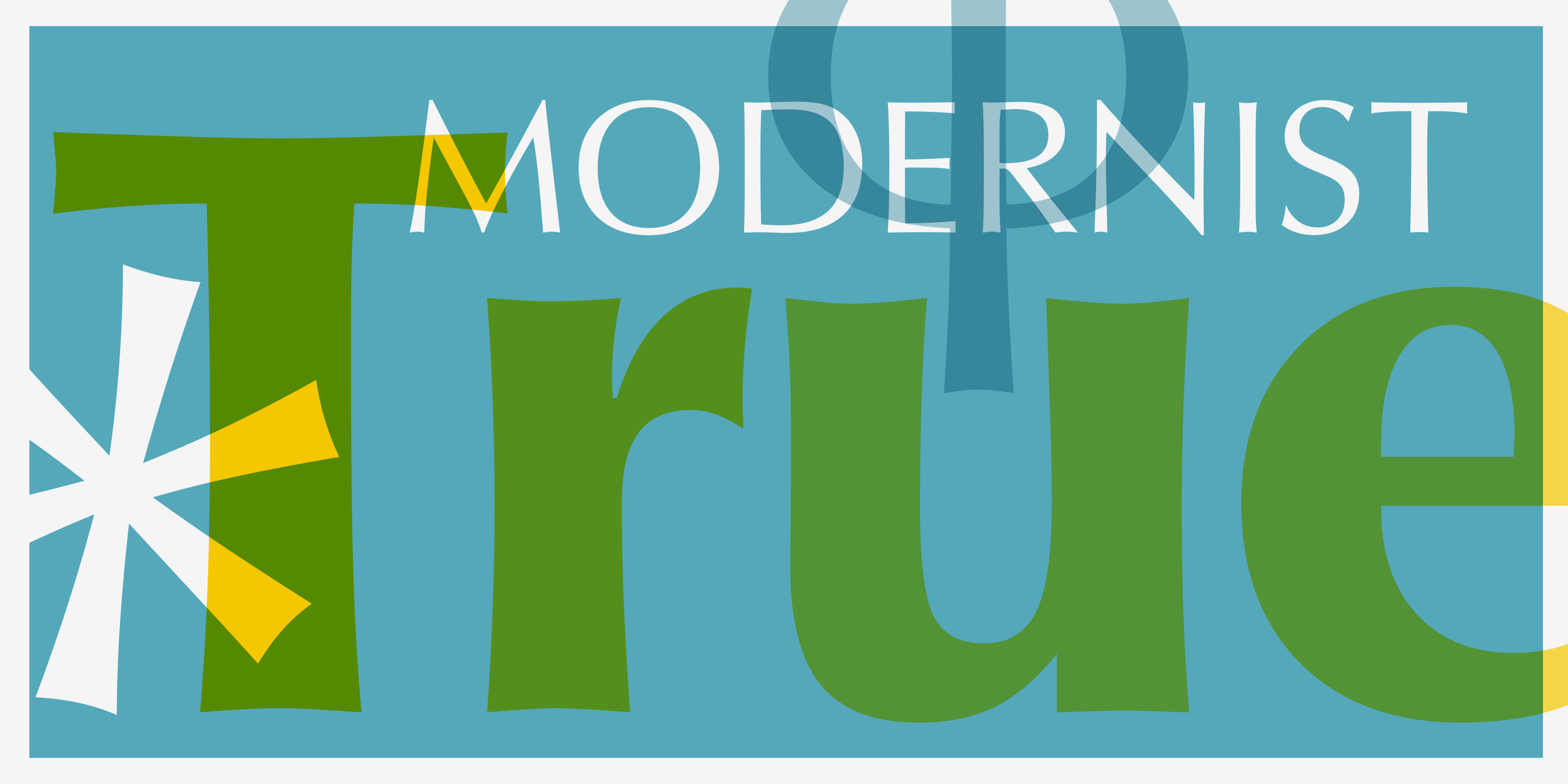
Zapf Humanist 601 Font is perfect for various applications including scholarly publications, academic journals, professional book publishing, literary magazines, educational materials, corporate communications, cultural institution branding, philosophical texts, humanistic research papers, and refined editorial designs.
What makes Zapf Humanist 601 Font so exciting is its masterful embodiment of humanistic typography principles that seamlessly blend classical elegance with contemporary readability to create the perfect balance for scholarly and intellectual discourse. This distinguished typeface features refined letterforms with humanist proportions and calligraphic details that capture the essence of Renaissance typography and modern typographic excellence. The font's intellectual character and humanistic aesthetic make it ideal for brands that want to convey scholarship, wisdom, and cultural sophistication to audiences who value intellectual pursuits, academic excellence, and humanistic traditions.
Zapf Humanist 601 Font family includes multiple weights and styles: Light, Regular, Medium, Bold, Black, Italic, Small Caps, Condensed, and scholarly crafted variants. Each family member maintains the font's signature humanistic elegance while offering different levels of visual hierarchy and stylistic flexibility for diverse academic and intellectual applications.
The Zapf Humanist 601 Font Free Download provides designers with access to a humanistically-inspired typeface that excels in academic and cultural markets. Whether you're creating scholarly publication identities, designing educational materials, or developing intellectual digital experiences, this font delivers the refined aesthetic needed to establish credibility with academic audiences and cultural institutions. Its humanistic styling and scholarly essence make it particularly effective for universities, research institutions, and cultural organizations.
Typography scholars will appreciate the classical foundation and humanistic principles in Zapf Humanist 601 Font's construction. The font features elegantly proportioned letterforms with calligraphic inspiration, optimized spacing for extended reading, and carefully balanced details that ensure exceptional legibility while maintaining its distinguished character. From academic dissertations to cultural exhibition catalogs, this typeface maintains its scholarship and intellectual appeal across all educational contexts.
For academic web designers, Zapf Humanist 601 Font provides outstanding performance in scholarly digital environments and educational platforms. The font's technical specifications are optimized for extended reading experiences while preserving the refined, humanistic edges that define its intellectual character. Its versatility makes it suitable for both static academic content and interactive educational experiences.
Creative professionals working in education, publishing, cultural institutions, and intellectual communications will find Zapf Humanist 601 Font to be an essential tool for projects requiring scholarly visual communication. The font's ability to convey wisdom, tradition, and intellectual excellence makes it invaluable for brands targeting educated demographics and academically-minded audiences.
Design agencies specializing in educational and cultural brands appreciate Zapf Humanist 601 Font's versatility in creating memorable scholarly identities.